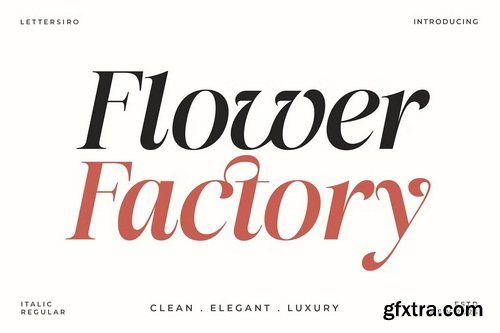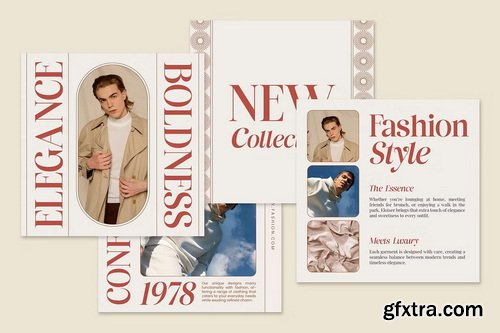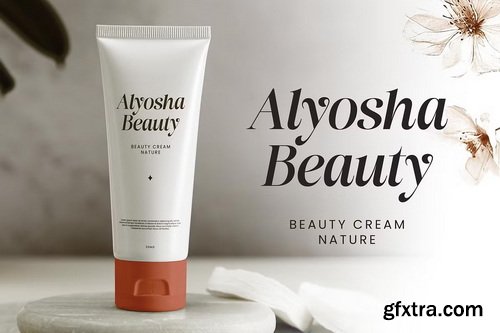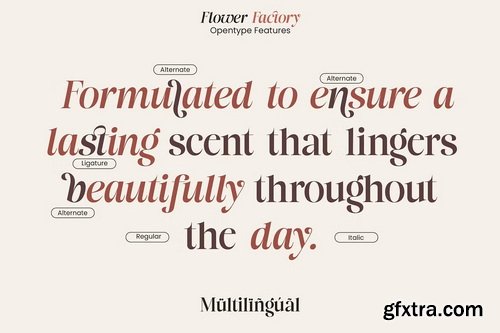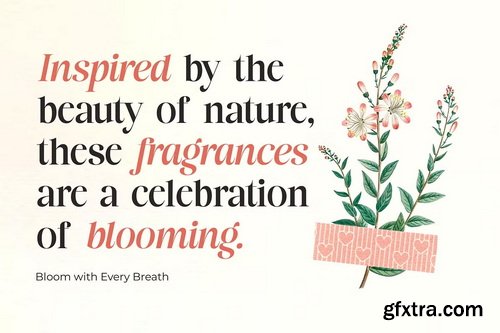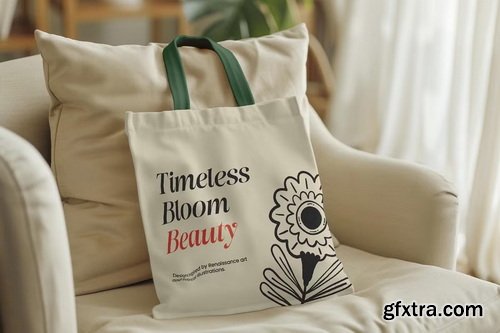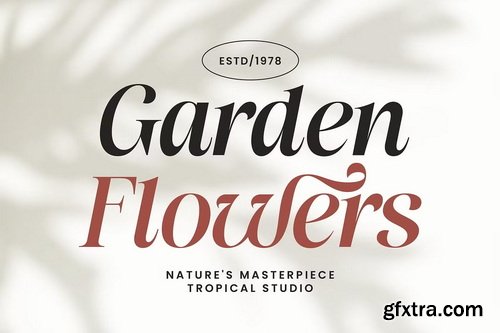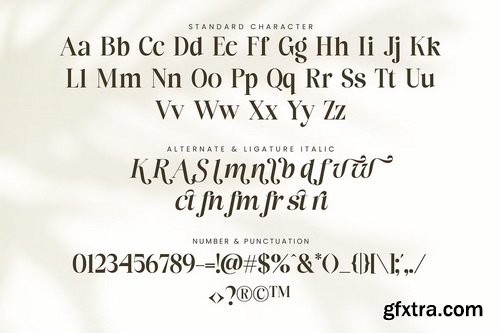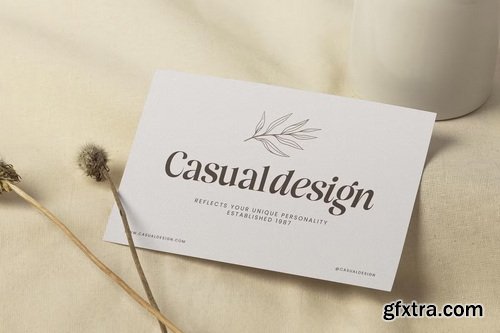
- Flower Factory is a stylish serif font that combines modern elegance with artistic charm. Designed with graceful curves and refined contrast, this typeface brings a sense of beauty, confidence, and sophistication to your visual projects. Its clean yet expressive letterforms make it perfect for branding designs that require a touch of personality and professional flair.
- With both Regular and Italic styles included, Flower Factory offers creative flexibility for titles, logos, product packaging, quotes, posters, and more. Every detail is thoughtfully crafted to ensure a unique typographic voice that feels timeless and elegant. This font gives your design a distinctive and luxurious presence across both print and digital media.